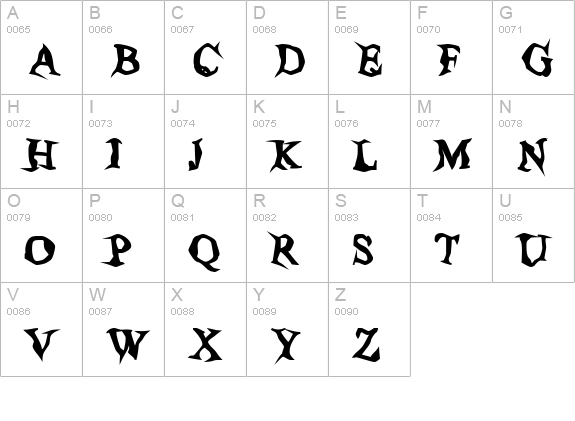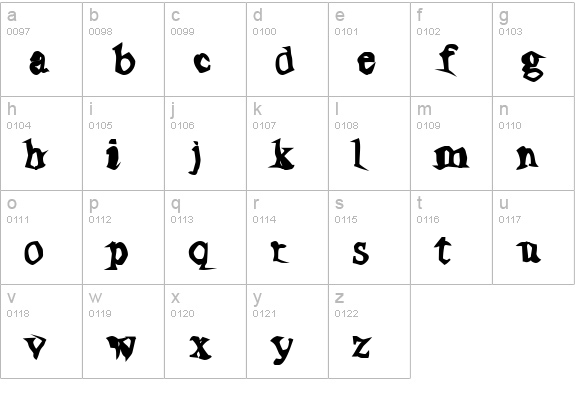
Poltergeist Thick Font Details
Poltergeist Thick font is a bold and attention-grabbing typeface that exudes a sense of strength and confidence. Its thick lines and unique style make it perfect for making a statement in headlines, logos, and other design projects. The font's distinctive appearance sets it apart from other typefaces, making it a versatile choice for both digital and print applications. What makes Poltergeist Thick font even more appealing is that it is available for free download at FontsMarket.com. This means that designers and creatives can easily access this striking font without any cost, adding value to their projects without breaking the bank. With its bold presence and sleek design, Poltergeist Thick font is sure to make a lasting impression wherever it is used.